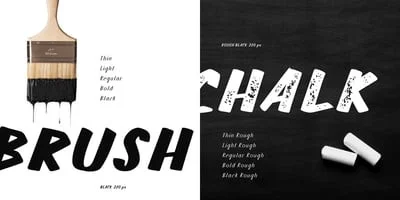
Walls Font
Walls Font is perfect for urban design projects, street art inspired graphics, graffiti-style logos, hip-hop album covers, skateboard brand identity, youth-oriented marketing campaigns, music festival posters, streetwear clothing labels, and edgy social media content. This dynamic typeface brings authentic street culture energy to both digital and print design applications.
Walls Font is exciting because it captures the raw energy and rebellious spirit of urban typography, making it an exceptional choice for designers who want to create bold, impactful designs that resonate with contemporary street culture. Its distinctive character shapes and edgy styling provide the perfect balance between artistic expression and readable functionality, ensuring your projects command attention and communicate authenticity.
The Walls Font family includes various stylistic alternates, decorative elements, and special characters that enhance creative flexibility. Each glyph maintains consistent urban aesthetics while offering designers multiple options for customization, allowing for unique combinations and personalized typography treatments that reflect individual creative vision.
Whether you're designing for entertainment brands, youth marketing, or artistic projects, Walls Font delivers powerful visual impact that connects with target audiences. This premium typeface offers designers the tools needed to create authentic urban-inspired designs that stand out in competitive markets. The font's bold personality makes it ideal for headlines, logos, and display applications where strong character and street credibility are essential. Download Walls Font today and infuse your creative projects with genuine urban sophistication and contemporary edge.